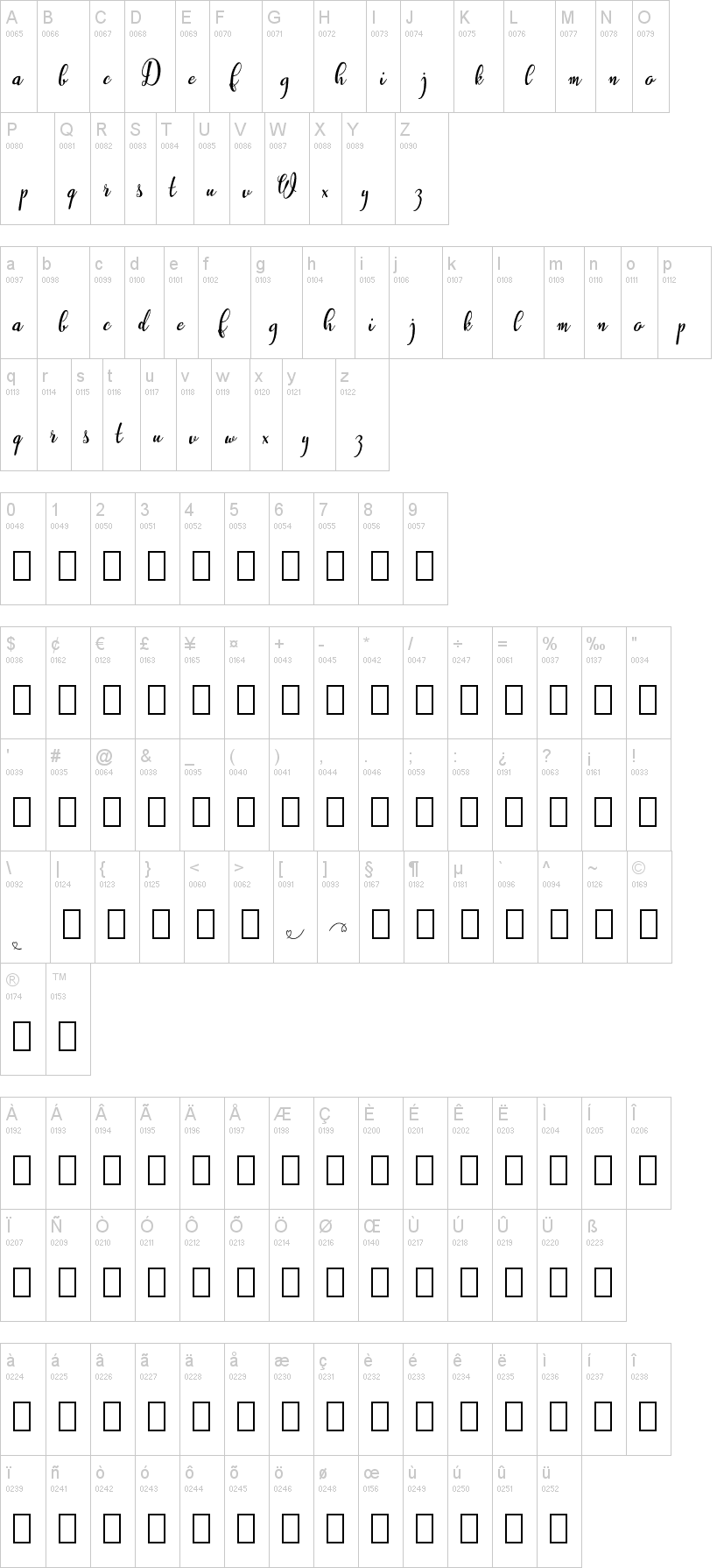
Westyler
which includes the capitals, numerals, punctuations and further alternates.
Type [ before word and type ] after word for the swashes.
Type \ before letter g/j/y/z to change the bottom loop.
See example: [golden a\ge]